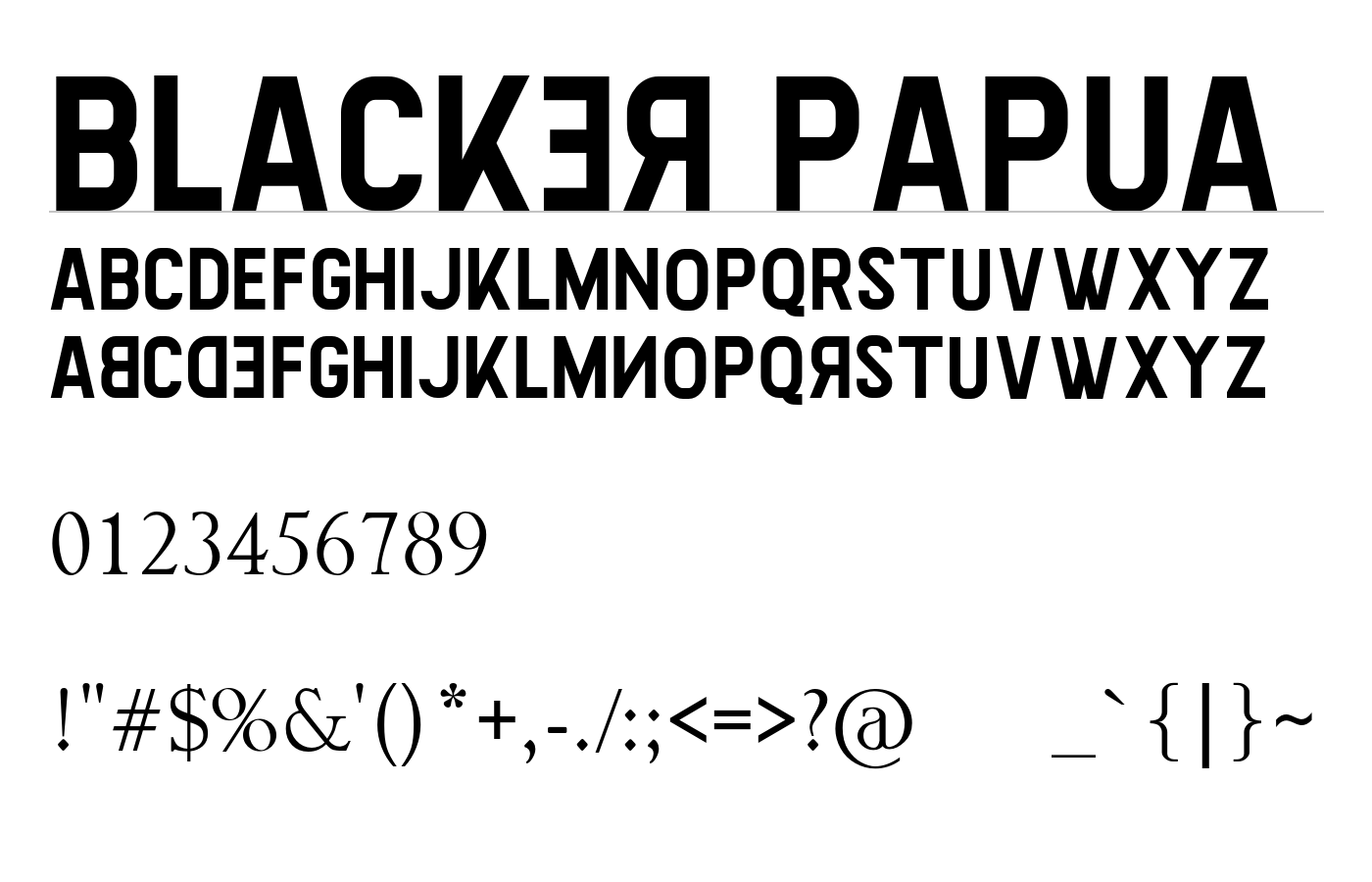
Blacker Papua is a bold, condensed sans serif font with a strong, modern personality marked by its striking geometric shapes and unique reversed letterforms that add a dynamic, edgy flair. Its high-impact design makes it perfect for attention-grabbing headlines, logos, and branding projects where a contemporary, confident look is desired. The combination of clean lines with playful, unexpected details gives it versatility for use in fashion, editorial, and creative advertising.
Blacker Papua Font
About Blacker Papua Font